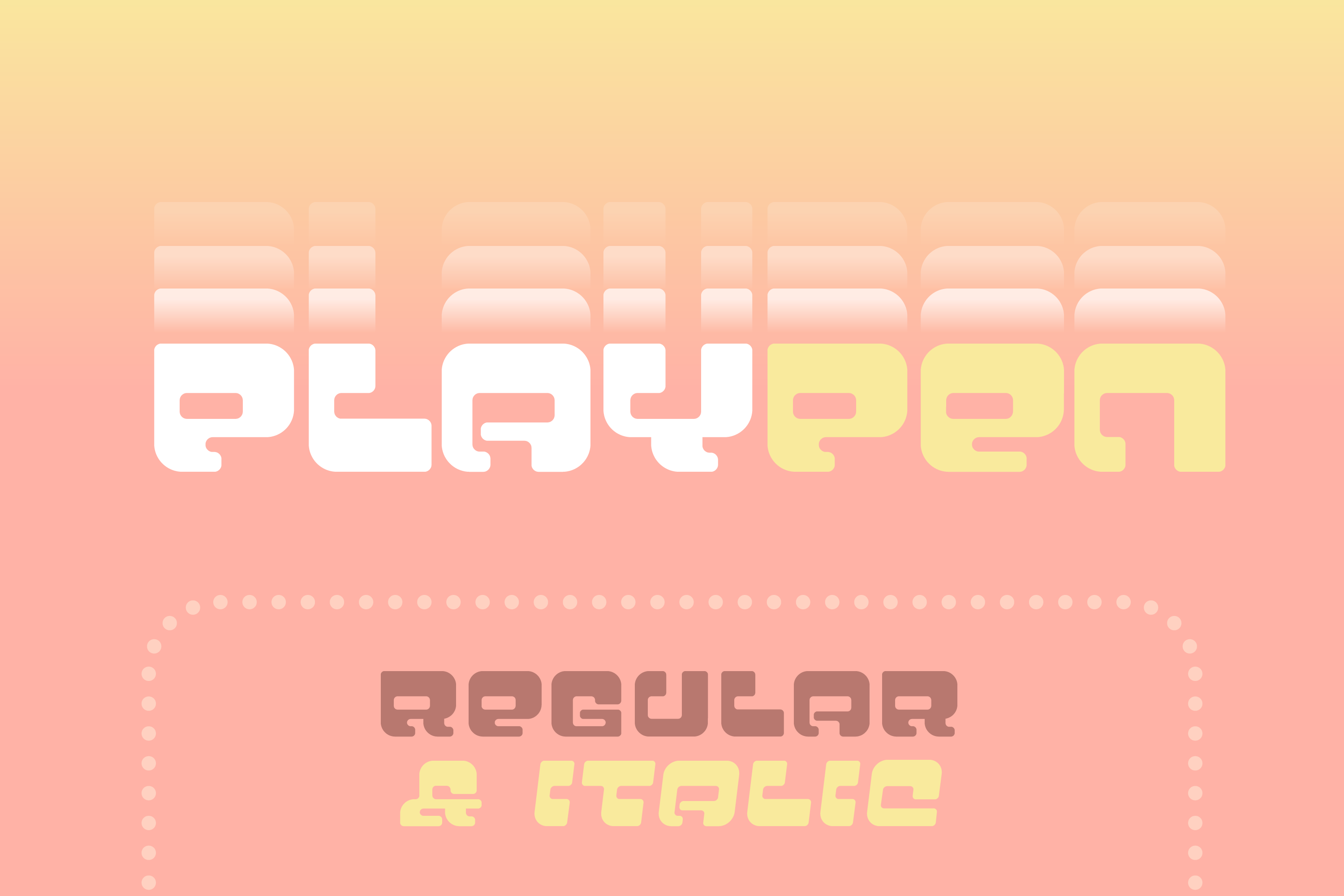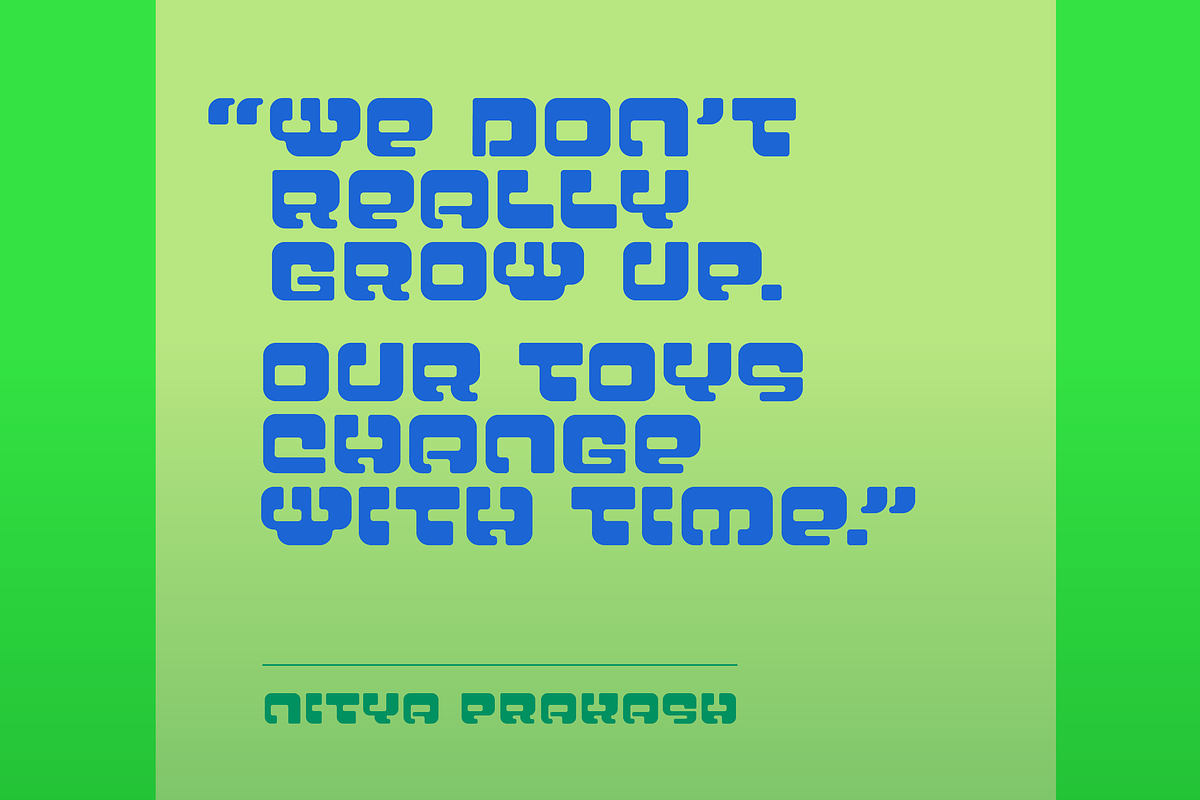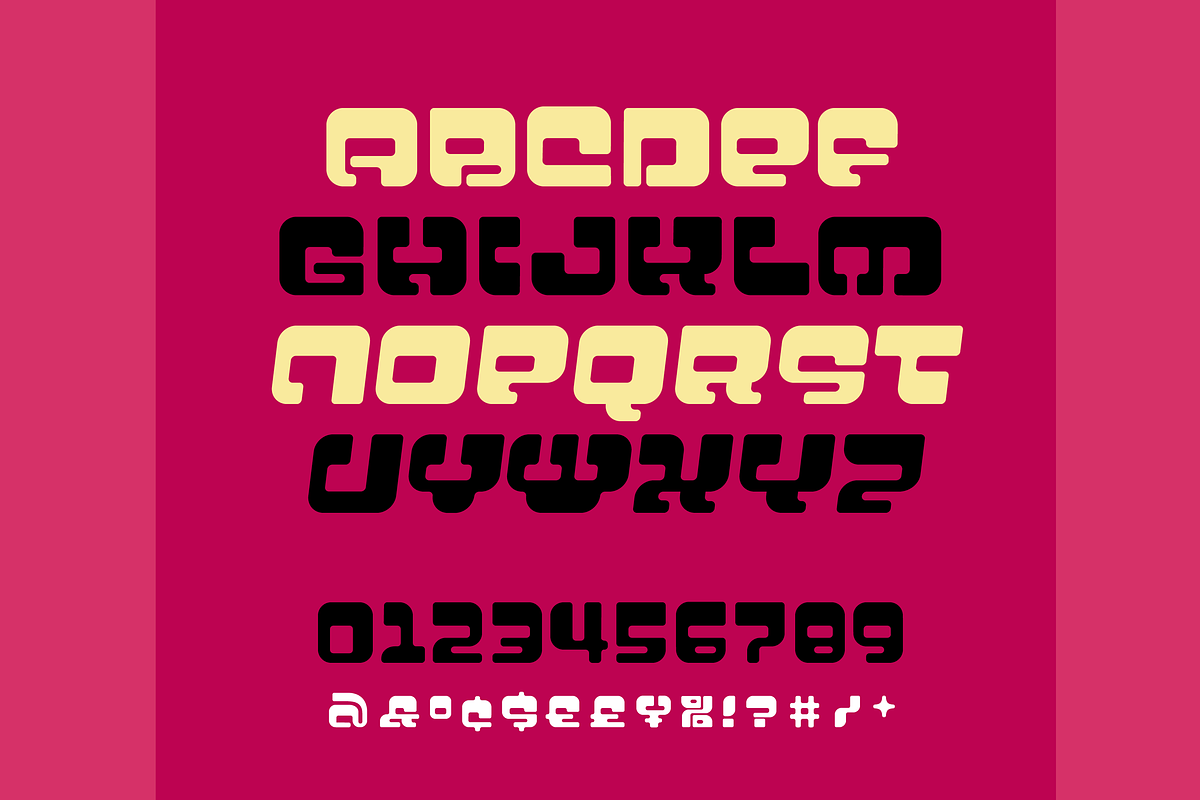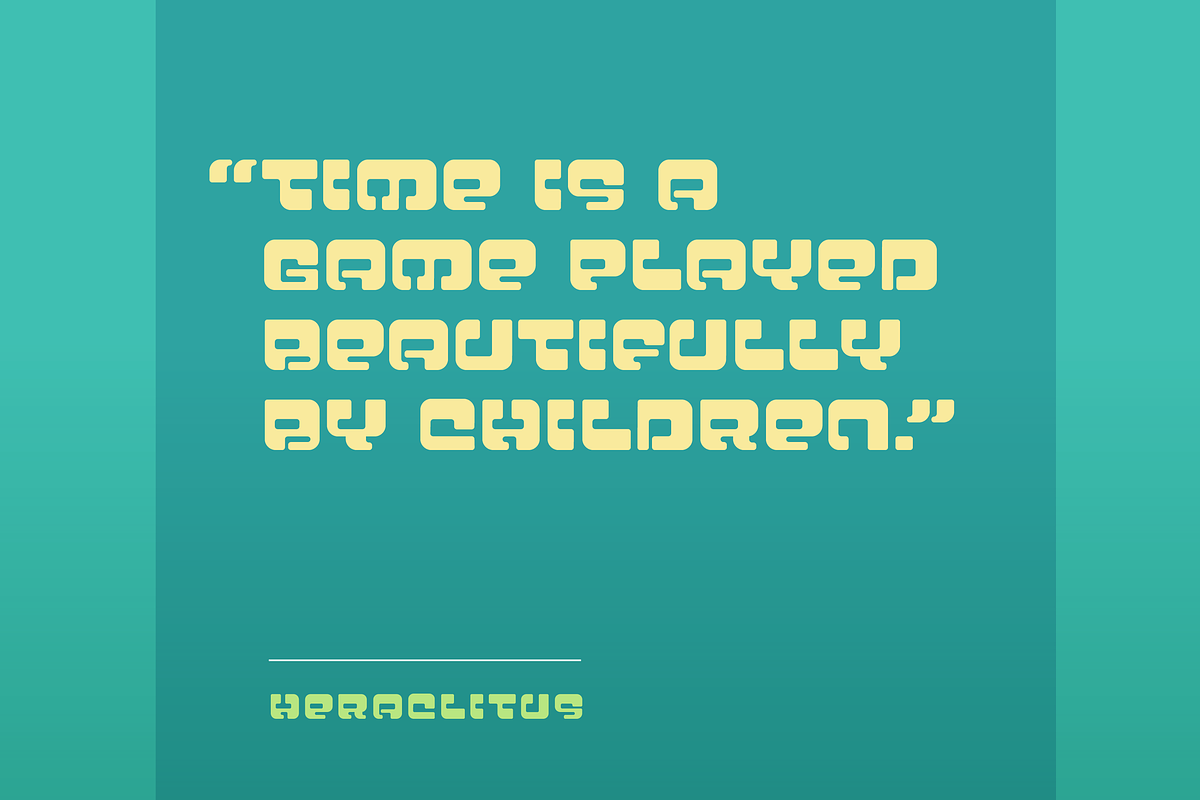
Playpen Fun Display Font (2 fonts)
SB Playpen is a fun display font in two styles.
- Regular and Italic versions.
- SB Playpen contains 85 glyphs supporting 35 languages.